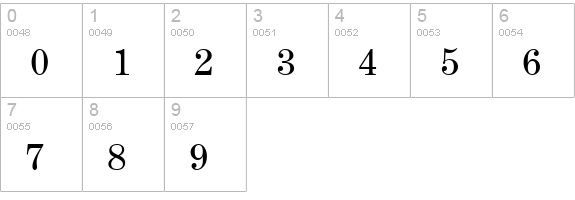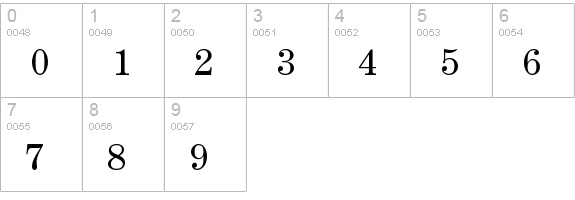
Century-Expanded-Regular is the standard, neutral, extended-width variant in the Century typeface family \xE2\x80\x94 well suited to general body text, paragraphs, and standard typographic work.
Century Expanded Regular is a classic and versatile font that exudes elegance and sophistication. With its clean lines and timeless appeal, this typeface is perfect for a wide range of design projects, from branding to editorial design. The balanced proportions and subtle variations in stroke width make Century Expanded Regular a highly readable font that is suitable for both display and body text. What sets Century Expanded Regular apart is that it is available for free download at FontsMarket.com. This means that you can easily access and use this high-quality font in your projects without any cost. Whether you're a professional designer or a hobbyist, Century Expanded Regular offers a reliable and stylish option for your typographic needs. Download it today and elevate your designs with this timeless typeface.